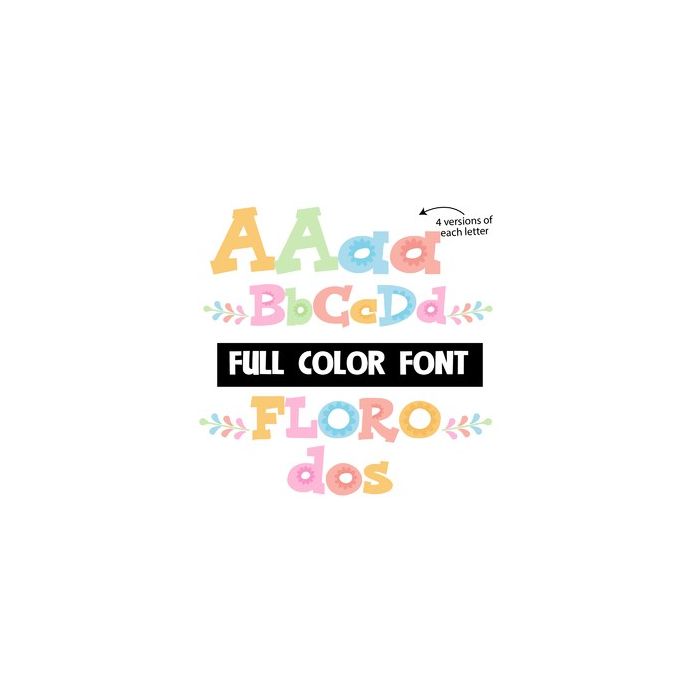
This full-color font features a pastel color palette with floral elements in many letters. There is an alternate upper and lowercase in different colors to help you keep your work creative looking. Access it through your system's character map or the glyph map in Silhouette Studio.